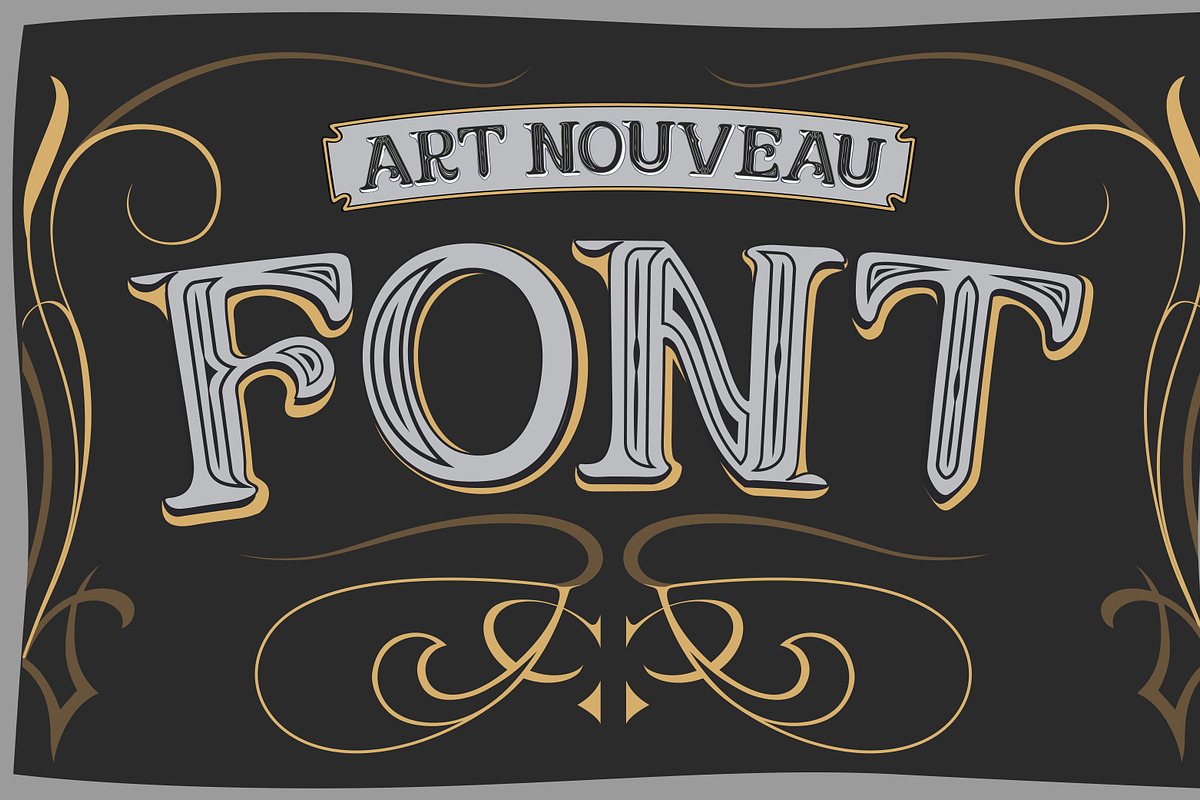
Vector art nouveau label font
Vector art nouveau label font by Fractal fonts & graphics is a font selected for branding, posters, packaging, typography.
Why Vector art nouveau label font is worth a look
Vector art nouveau label font by Fractal fonts & graphics fits naturally into Branding, posters, packaging, typography.